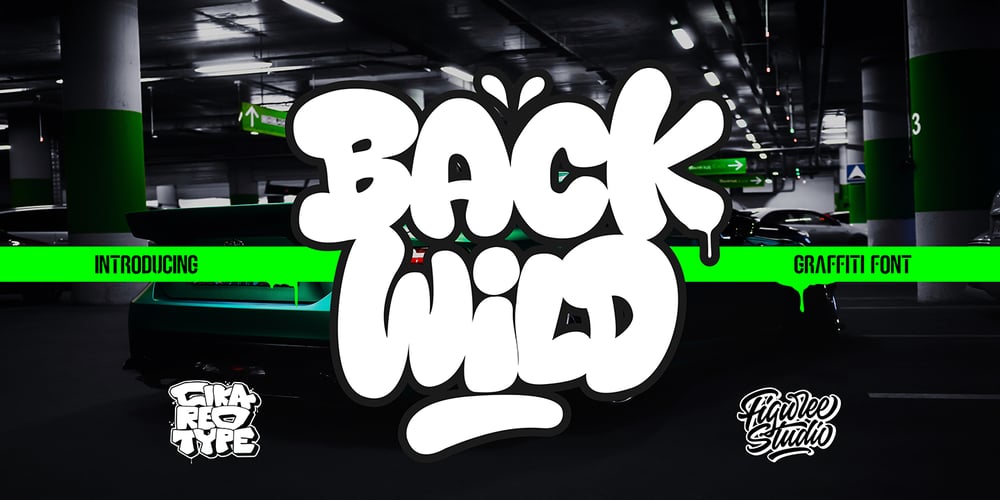
Back Wild Graffiti
Back Wild Graffiti font
Back Wild Graffiti Font Family was designed by Sipanji and published by Sipanji21. Back Wild Graffiti contains 2 styles and family package options. “Back Wild” is a bold and chubby graffiti font that includes swash characters. Fonts with these attributes generally feature bold and wide letterforms, often with playful and rounded elements. Swash characters add decorative and stylish touches to the font, If you have any specific questions or if there’s anything specific you’d like to know or discuss about graffiti fonts or design, feel free to ask!